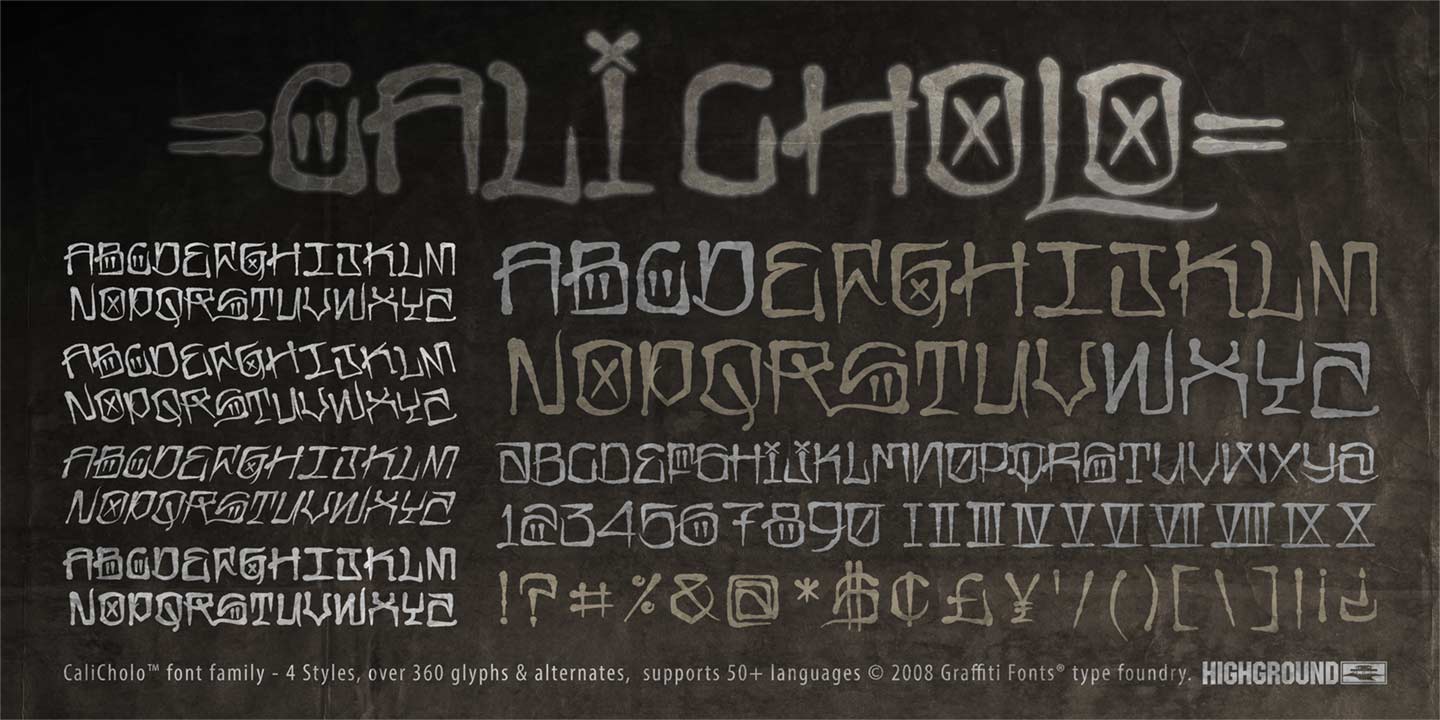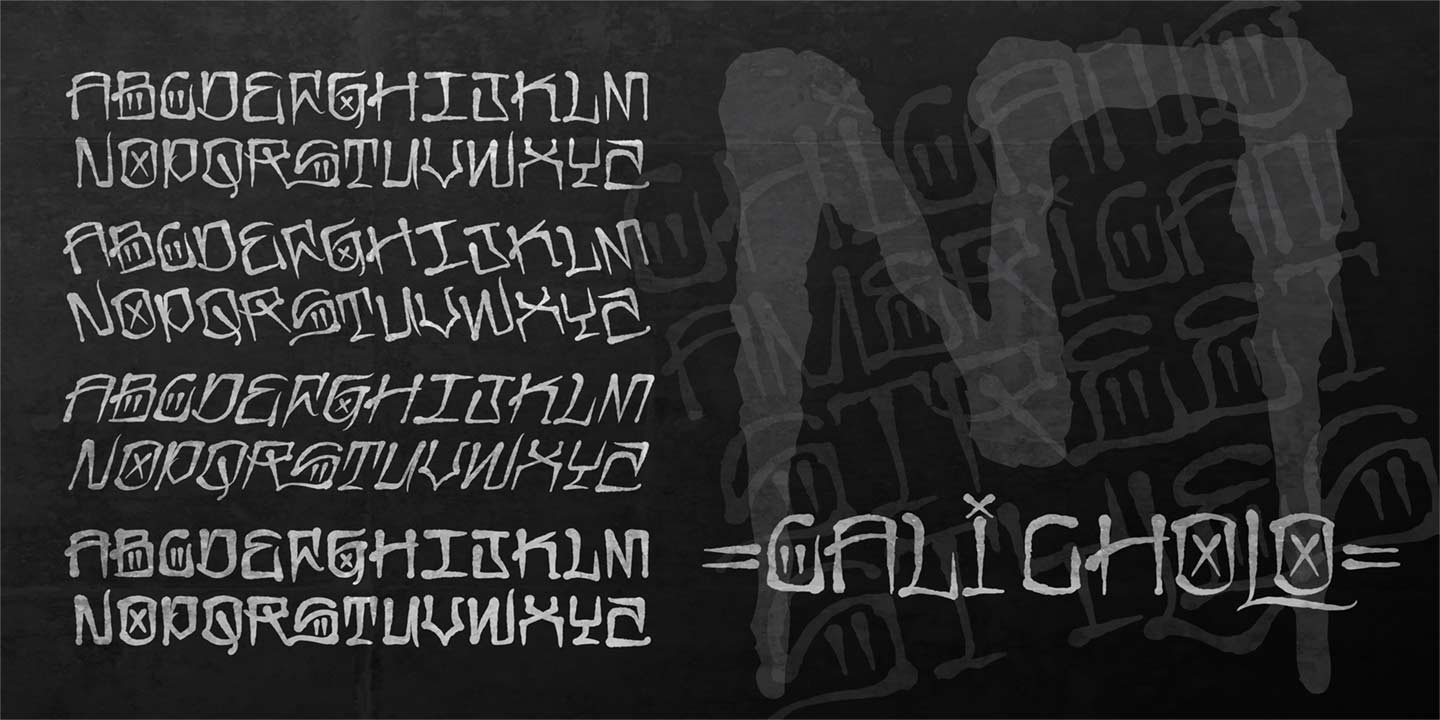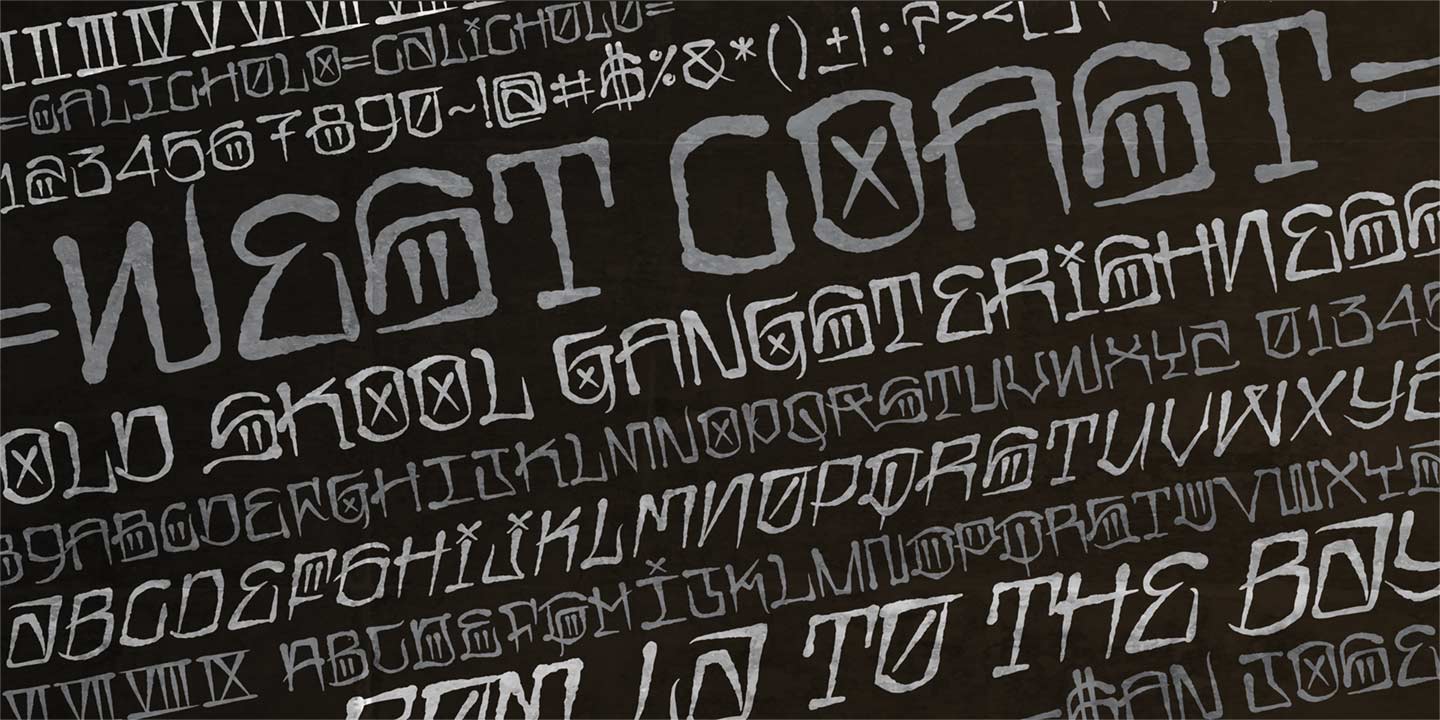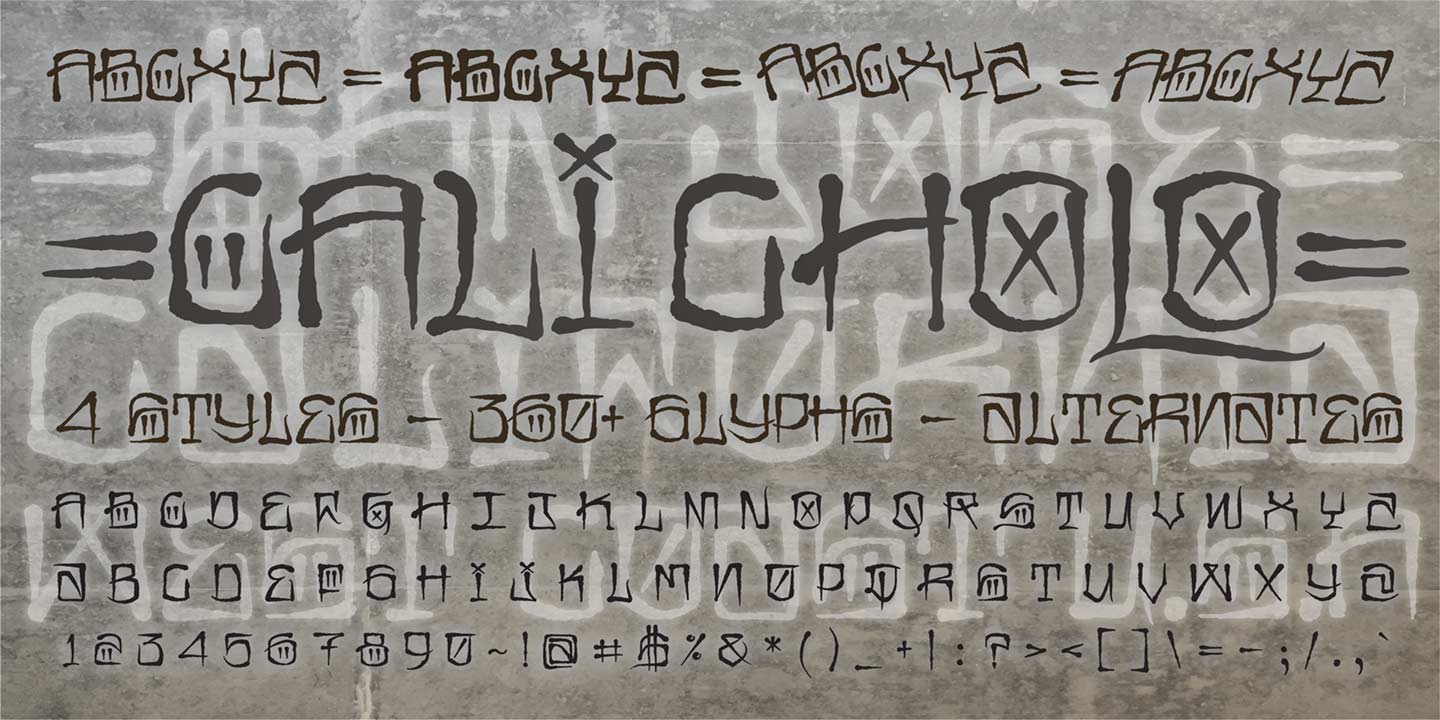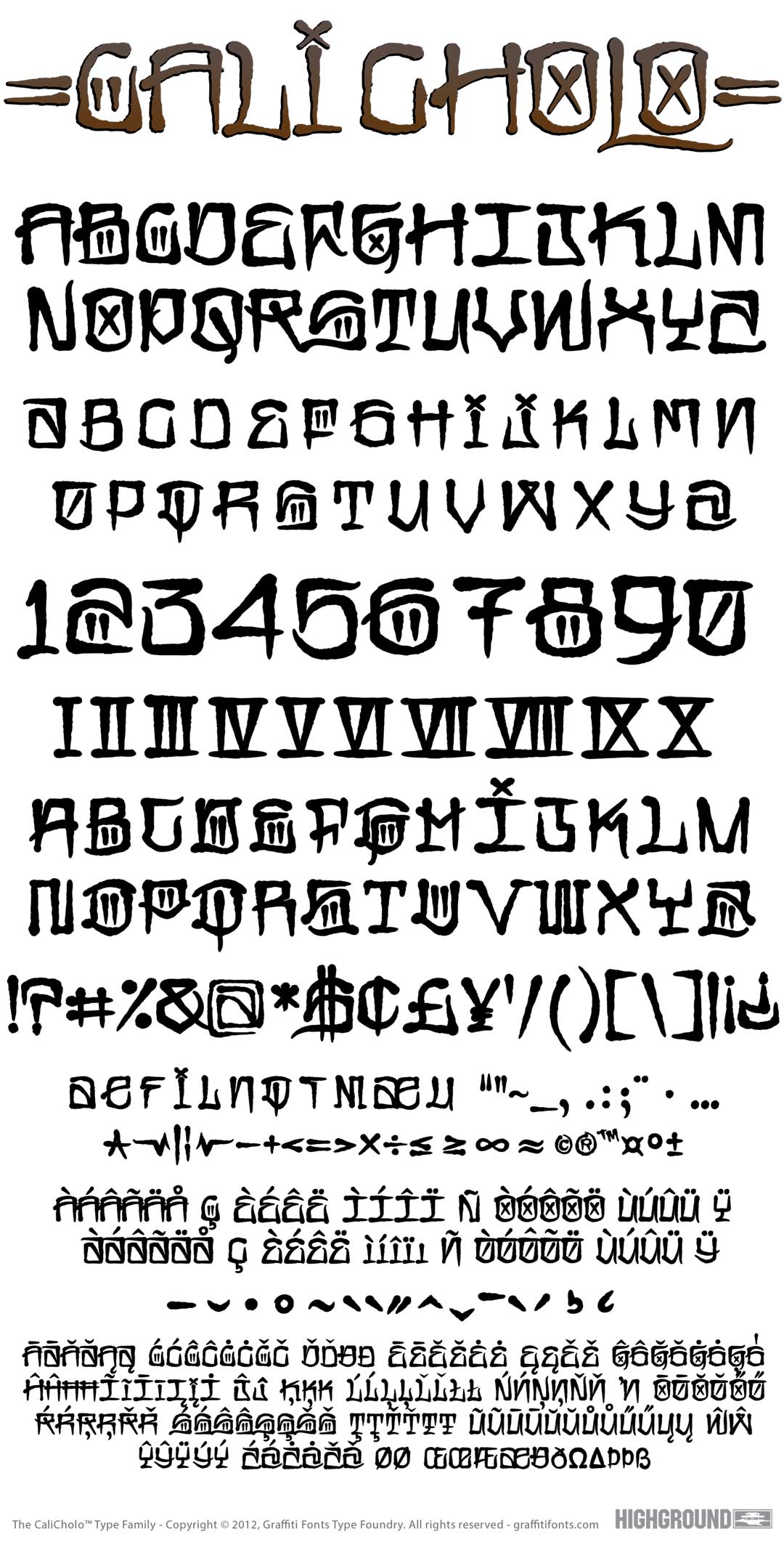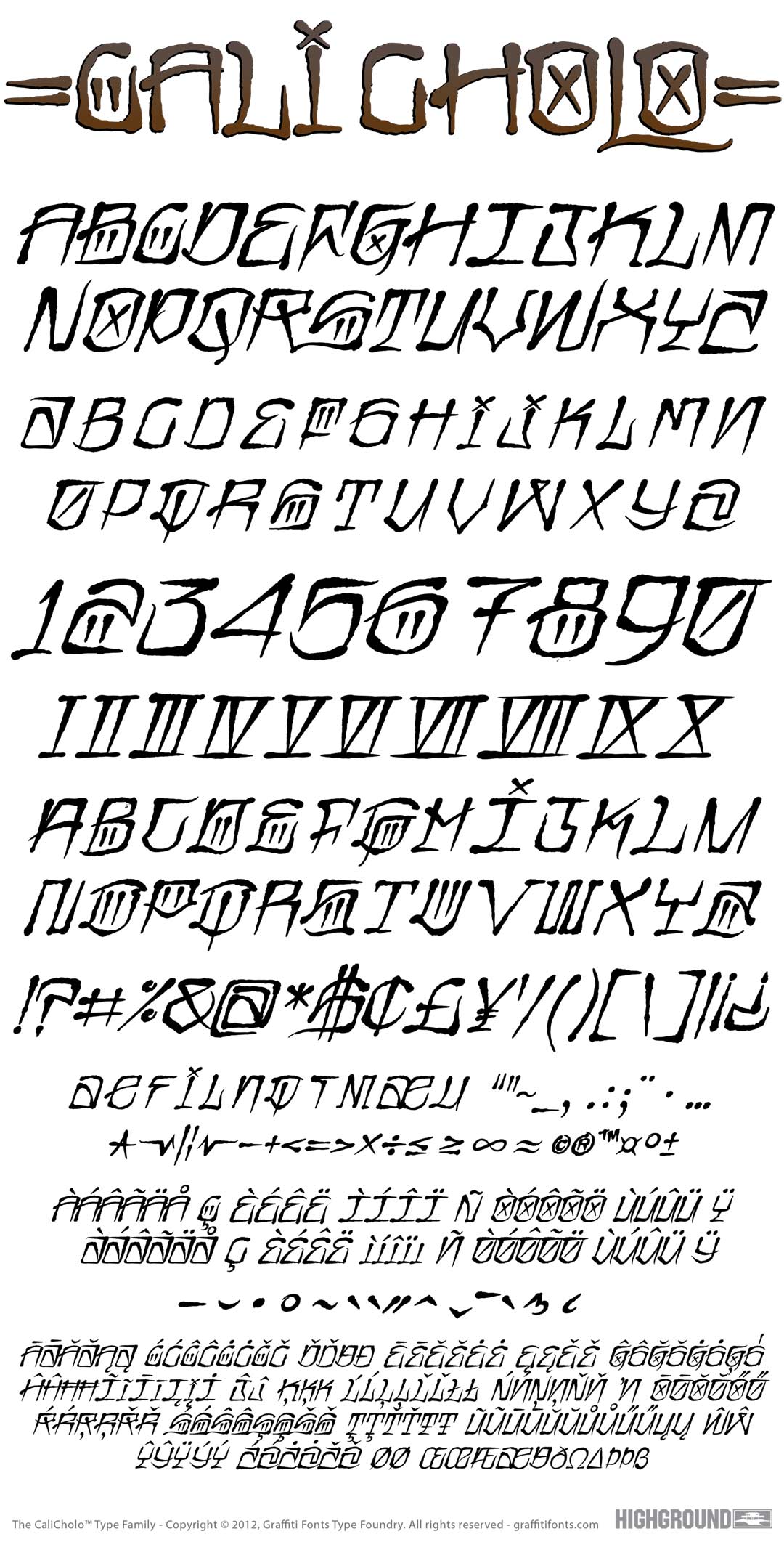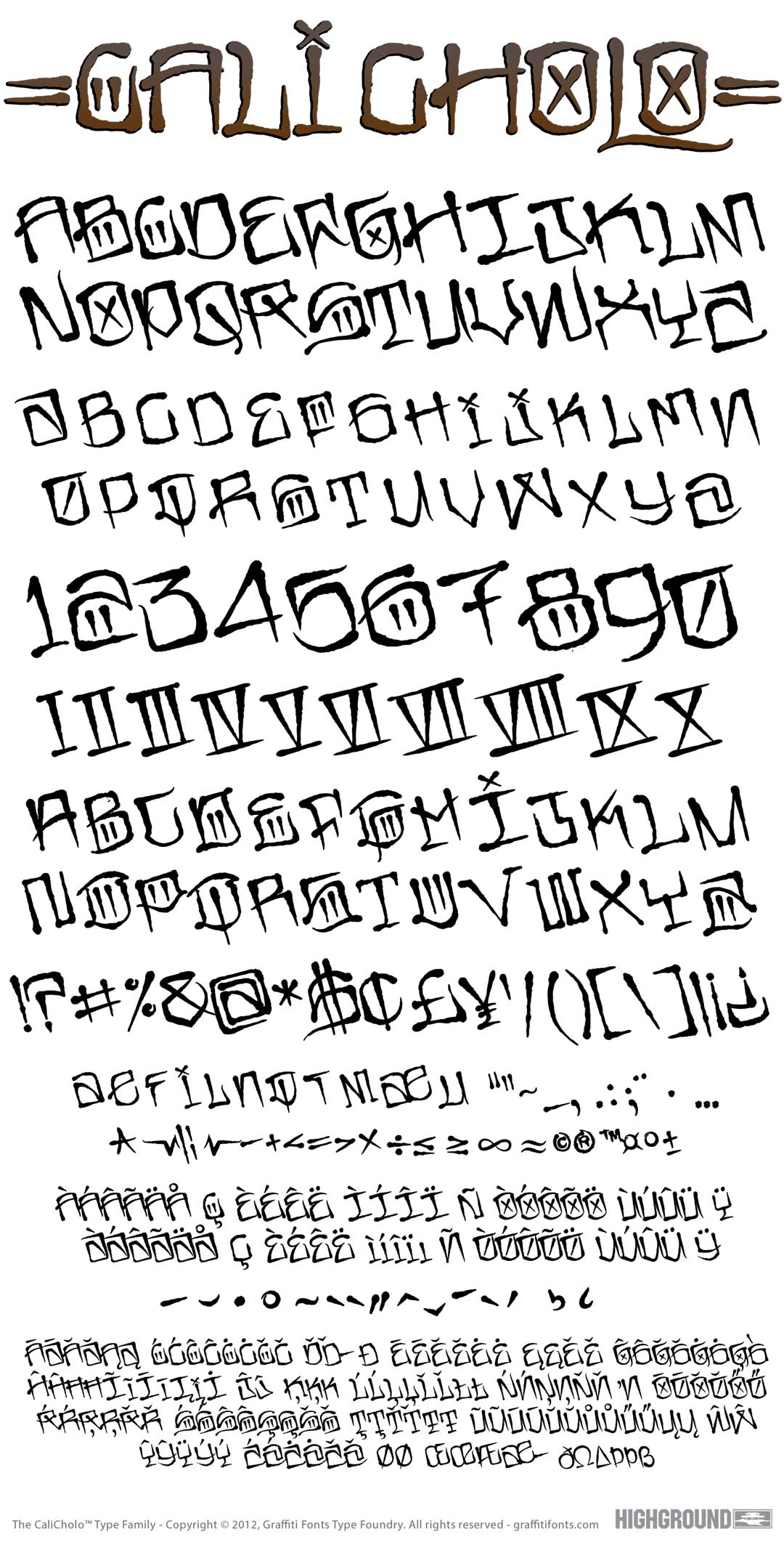
Cali Cholo Font
Cali Cholo Graffiti Alphabet
Cali Cholo Graffiti Font Family
Inspired by west coast street styles & presented in a rough, imperfect, blotchy style this font has the look of graffiti written quickly with spray paint. The 106 characters provide a full functioning typeface that is legible but still authentic. Letters from the uppercase & lowercase alphabets can be mixed and matched as they often are in real examples of styles like this when seen on the streets.